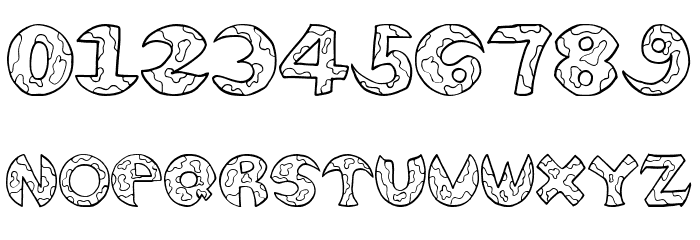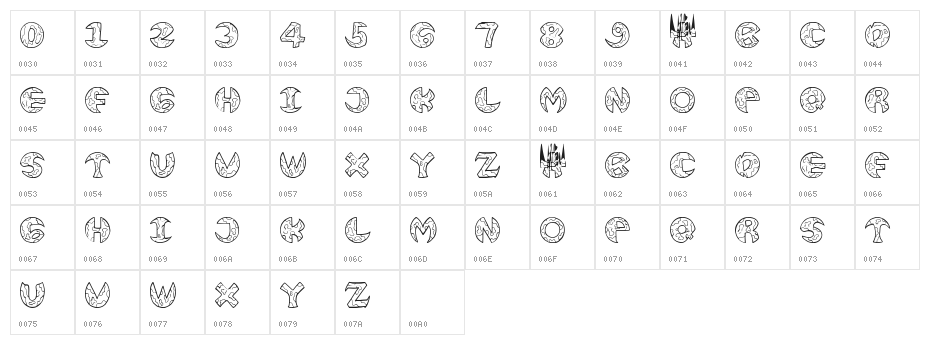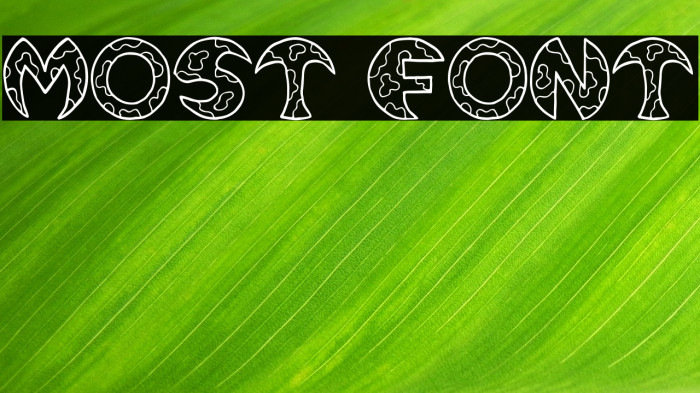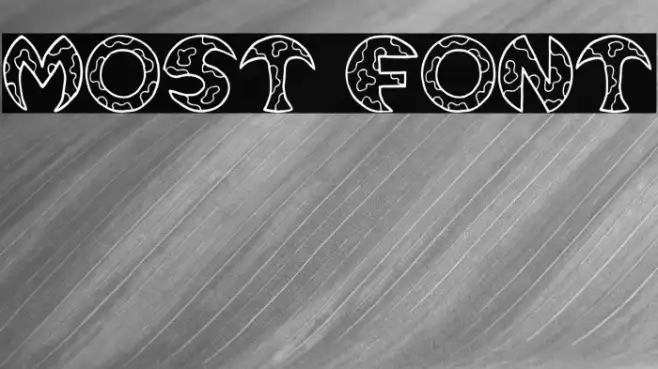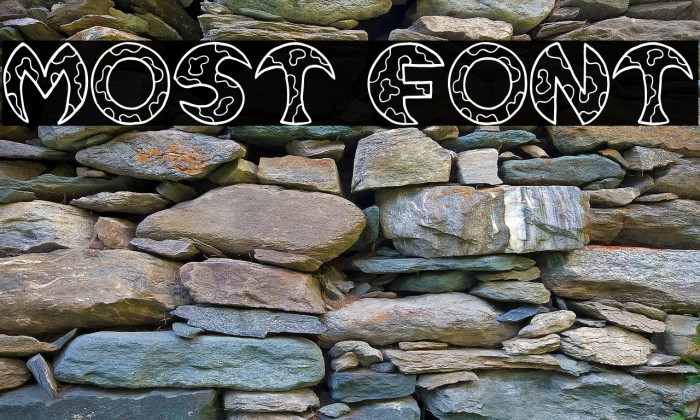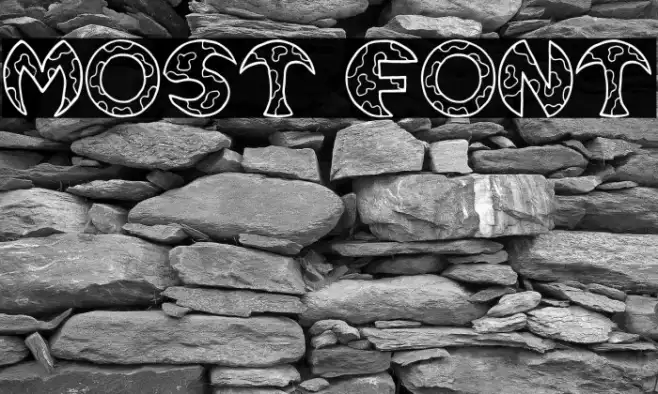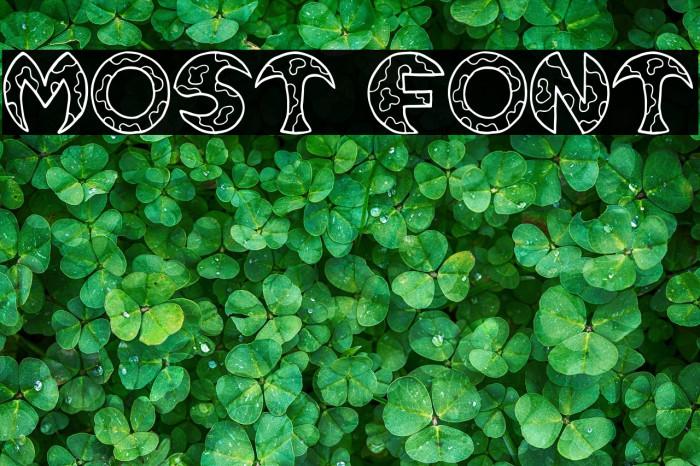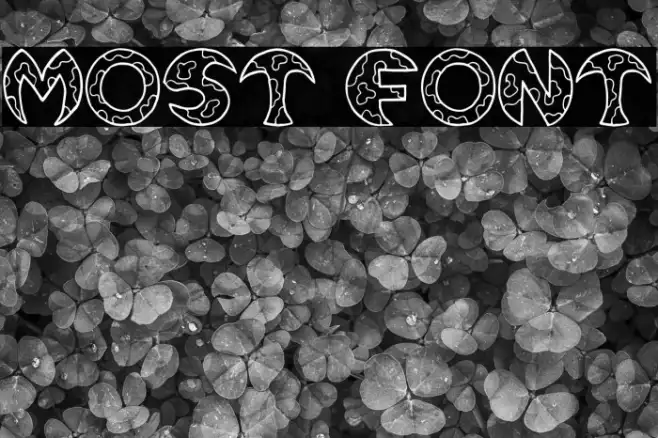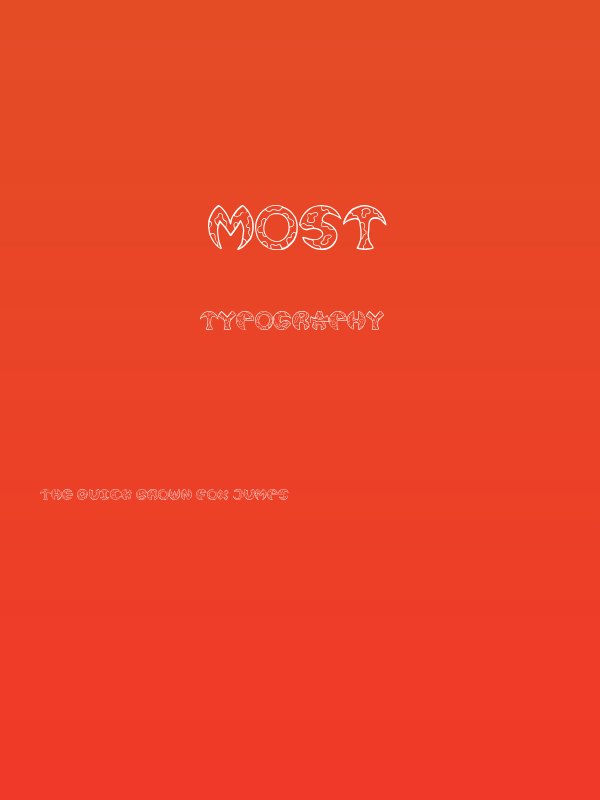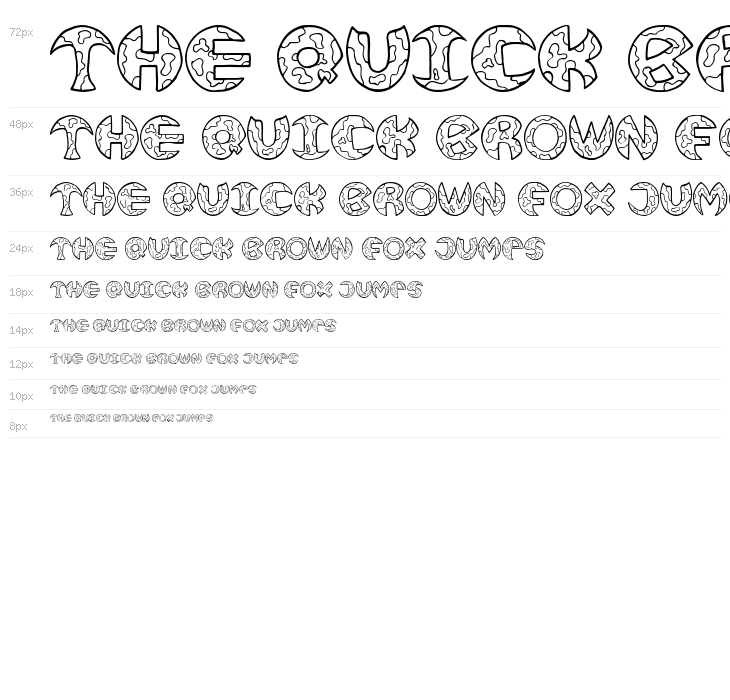
MOST Font
MOST Description
This font features a playful and bold design with a unique pattern filling each character. The letters are outlined with a thick black line, and the interiors are filled with abstract, irregular shapes reminiscent of camouflage or puzzle pieces. The overall appearance is eye-catching and dynamic, making it suitable for creative and informal applications. The uppercase letters are particularly striking, with each character maintaining a consistent height and width, while the numbers and special characters follow the same stylistic approach. This font is perfect for projects that require a fun and engaging visual element.
| Overall Style | Playful, Creative |
| Proposed Projects | Ideal for children's books, posters, party invitations, and playful branding. |